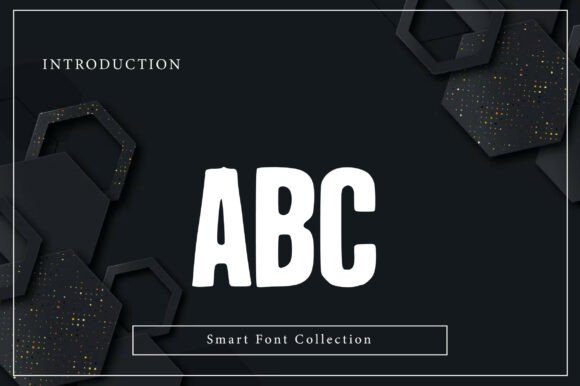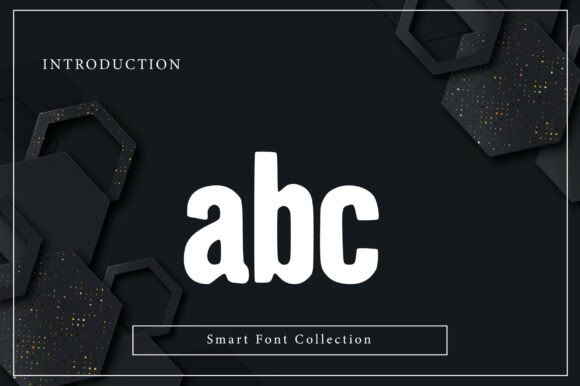
Introduction to Heavy Brutalist Font
Heavy Brutalist is a bold and powerful font inspired by brutalist graphic design and modern industrial typography.
Featuring thick strokes, strong proportions, and a raw minimal aesthetic, this font is perfect for posters, branding, editorial headlines, packaging, signage, album covers, streetwear designs, and modern layouts Heavy Brutalist delivers maximum impact with a confident contemporary attitude, making it ideal for bold typography projects that demand strength, clarity, and urban style.
Key Features of Heavy Brutalist Font